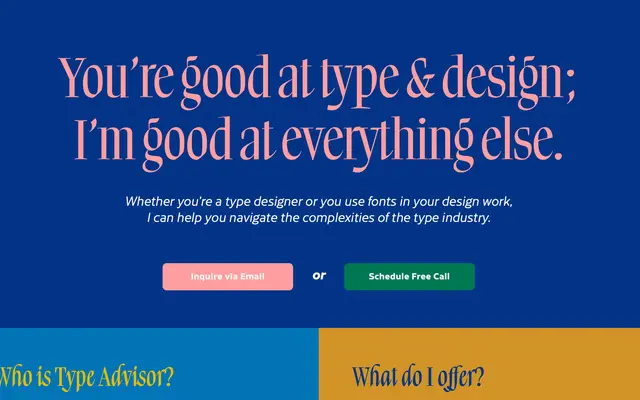
Cresta
JTD Type · Doug Wilson
A workhorse humanist sans by Doug Wilson, originally designed for JTD Type's own website and built for legibility across screen and print in six weights.
Cresta was designed without a historical reference, with every decision driven by what worked best for a general-purpose sans serif family. A large x-height, wide counters and generous apertures make it sturdy at small sizes on screen, while distinctive details — angled stroke joins on the n and idiosyncratic terminals on the lowercase r — give heavier weights a clear personality. The family spans Hairline to Black, each with a matching italic, and includes small caps, tabular figures and a broad Latin language set.
Cresta has a large x-height, open apertures and angled stroke joins characteristic of humanist sans design, with distinctive terminals on the lowercase r that give it a warmer, more characterful feel than a neutral grotesque.